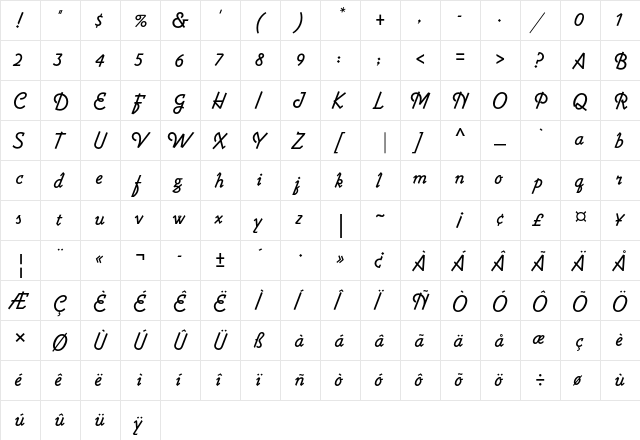
Lightnin Std Regular
| Designer | Alan Meeks |
Design Context for Lightnin Std Typeface
Lightnin Std is a composed and adaptable typeface that performs quietly and consistently across a wide range of design contexts. Its slender proportions lend an understated elegance to any composition.